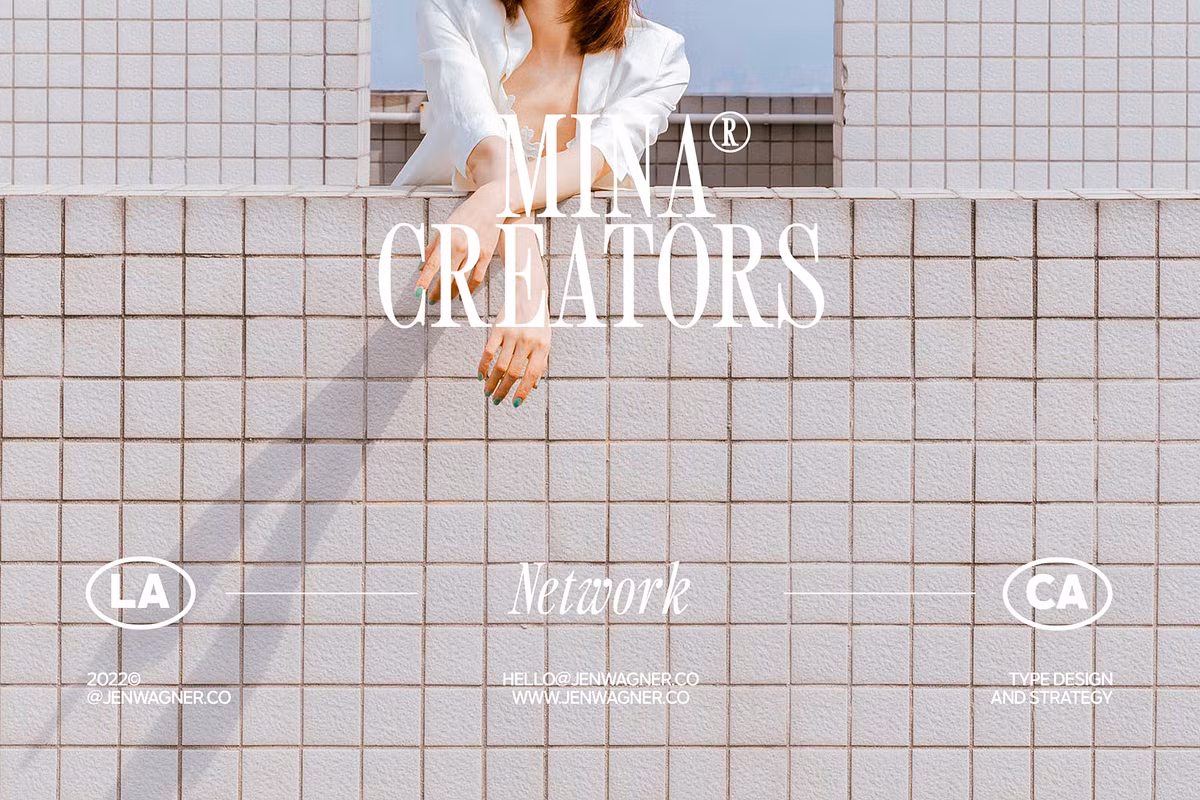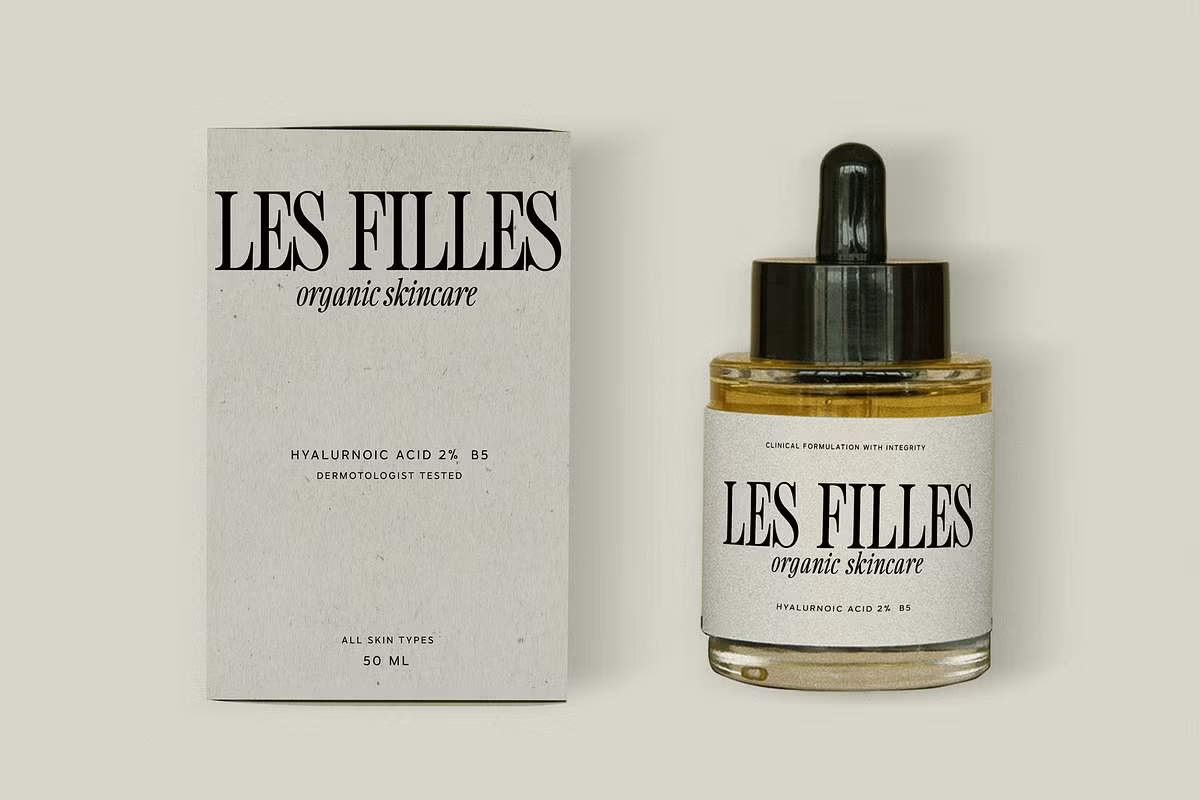
Sailing Club: Nostalgic Serif Typeface for Vintage-Inspired Design
Meet Sailing Club, a lovely serif font that brings back memories of the past. It’s great for adding a classic touch to your designs, like the kind you see on old college t-shirts. What makes Sailing Club special is how well its uppercase and lowercase letters work together. This makes it perfect for titles and headings, and a must-have for designers who want to add some vintage charm to their work. Whether you’re looking to create a retro feel or just want a font that’s a little different, Sailing Club is a great choice. Its unique style is sure to catch people’s attention and make your designs stand out.
Design Style of Sailing Club
The Sailing Club style is all about bringing back memories of the 90s and early 2000s, when fashion was casual but still really stylish. The special serif font used in Sailing Club is what makes it stand out – it’s fancy but also friendly and easy to like. With its simple lines and soft edges, it’s a great fit for lots of different design projects. This makes it really versatile and useful for many things. The overall feel of Sailing Club is nostalgic, but it also has a modern touch that makes it work well with today’s designs.
The look and feel of this style is similar to old college sweatshirts, you know, the kind people used to wear with bike shorts. It was a trend that was really popular back in the day, and people like Princess Diana helped make it cool. But this isn’t just a fleeting thing – it’s part of a bigger movement where people are really into retro styles again, and we’re seeing that in design everywhere. It’s like people are looking back and appreciating the old stuff, and that’s what’s making this style so appealing. The nostalgia factor is strong, and it’s not just about the clothes, it’s about the feeling and the memories that come with them.
What Makes Sailing Club Unique
What makes Sailing Club unique is that it can be both fancy and fun at the same time. It’s great for creating things like logos, headings, or inspiring quotes – it helps your words stand out in a good way, without being too much for the person looking at it. This typeface is really good at finding a balance, so your text gets noticed, but doesn’t overwhelm the person seeing it.
Character Sets and Features
Sailing Club comes equipped with a comprehensive character set that includes both uppercase and lowercase letters, numbers, and punctuation. This extensive range allows for a variety of typographical expressions, making it suitable for both formal and informal applications. The design of each character is carefully crafted to ensure readability and aesthetic appeal.
The Sailing Club is really useful for people all around the world because it can be used in many different languages. This is great for companies that want to sell things to people in other countries, or for designers who work on projects that need to be understood by people who speak different languages. It makes it easier for them to get their message across and for people to understand what they are trying to say.
What makes Sailing Club really special is the way its letters are spaced out. The people who made the typeface paid close attention to this, so it’s easy to read and looks balanced on purpose. But if you want to use it in all capital letters and have the letters really close together, you can try adjusting the spacing to somewhere between -20 and -35. This way, designers can play around with the typeface to make it work just right for what they’re doing. It’s pretty flexible, which is nice. You can use it to create a lot of different looks, depending on what you need.
Use Cases for Sailing Club
Sailing Club is particularly well-suited for a variety of design projects. Here are some common use cases:
- Branding and Logos: The nostalgic appeal of Sailing Club makes it an excellent choice for branding, especially for businesses targeting a youthful or retro-inspired demographic.
- Merchandise Design: Whether you’re creating apparel or promotional items, Sailing Club’s unique aesthetic ensures that your designs capture attention and resonate with customers.
- Social Media Posts: This typeface is great for quotes that pop, calls to action that drive results, and headers that get noticed – all of which can help your posts rise above the noise in a busy feed.
- Event Invitations: Sailing Club’s classic yet modern look lends itself beautifully to invitations and event materials, adding a touch of elegance to any occasion.
By leveraging the distinct style of Sailing Club, you can create designs that evoke a sense of nostalgia while remaining fresh and relevant in today’s design landscape.
So, let’s look back at the past with fondness and let Sailing Club be the spark that sets off your next creative project! It’s a great tool for anyone who wants to add a touch of nostalgia to their work, and its versatility makes it perfect for a wide range of design tasks. With Sailing Club, you can create something truly unique and eye-catching, whether you’re working on a big project or just a small one. Its charm is sure to capture people’s hearts and make your work stand out.